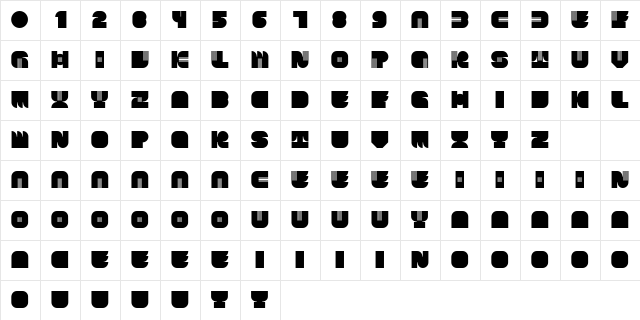
KARL Zone Regular
| Foundry | TOKOKOO STUDIO |
| Designer | Sahirul |
Design Context for KARL Zone Typeface
KARL Zone is a composed and adaptable typeface that performs quietly and consistently across a wide range of design contexts.